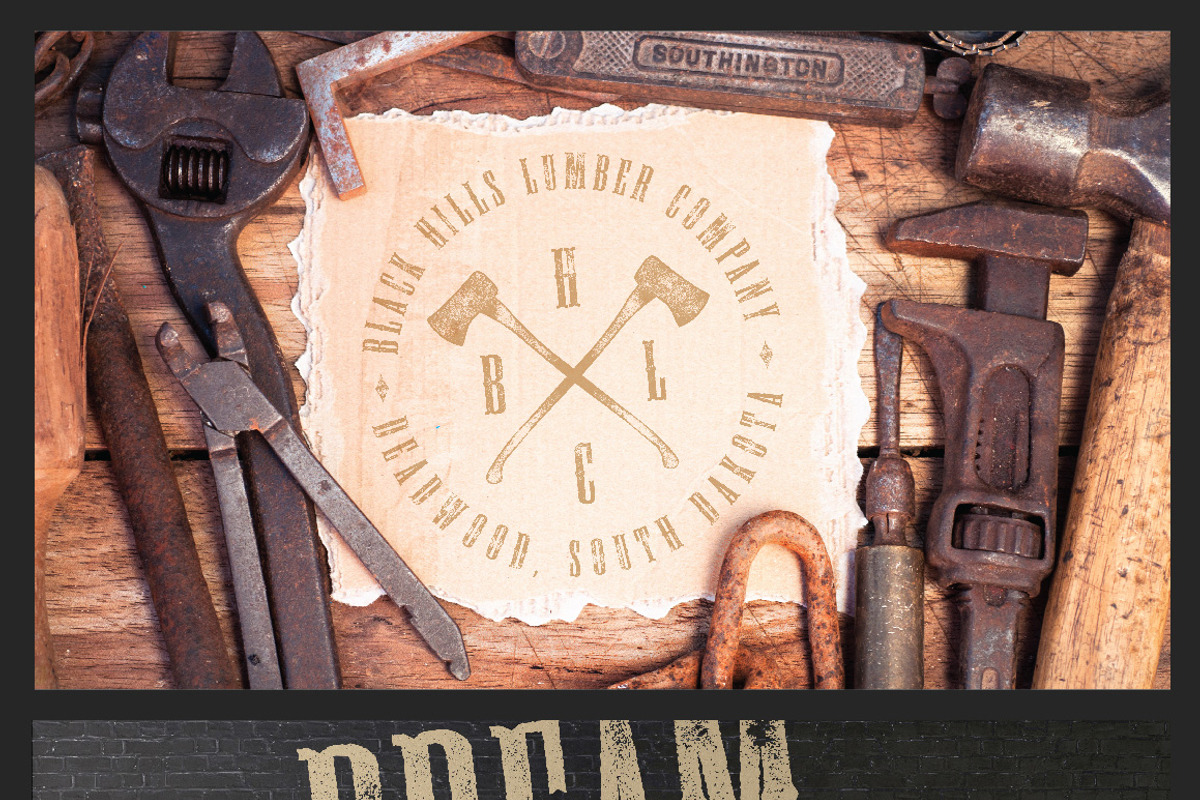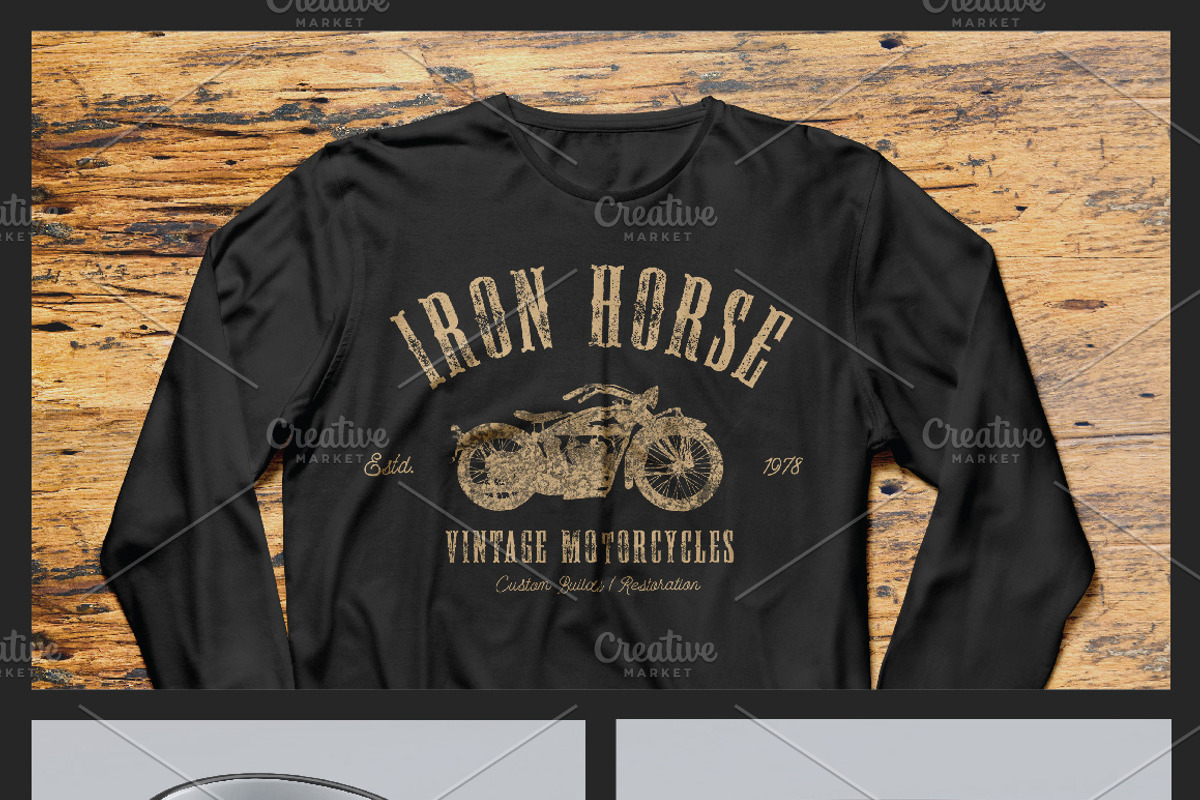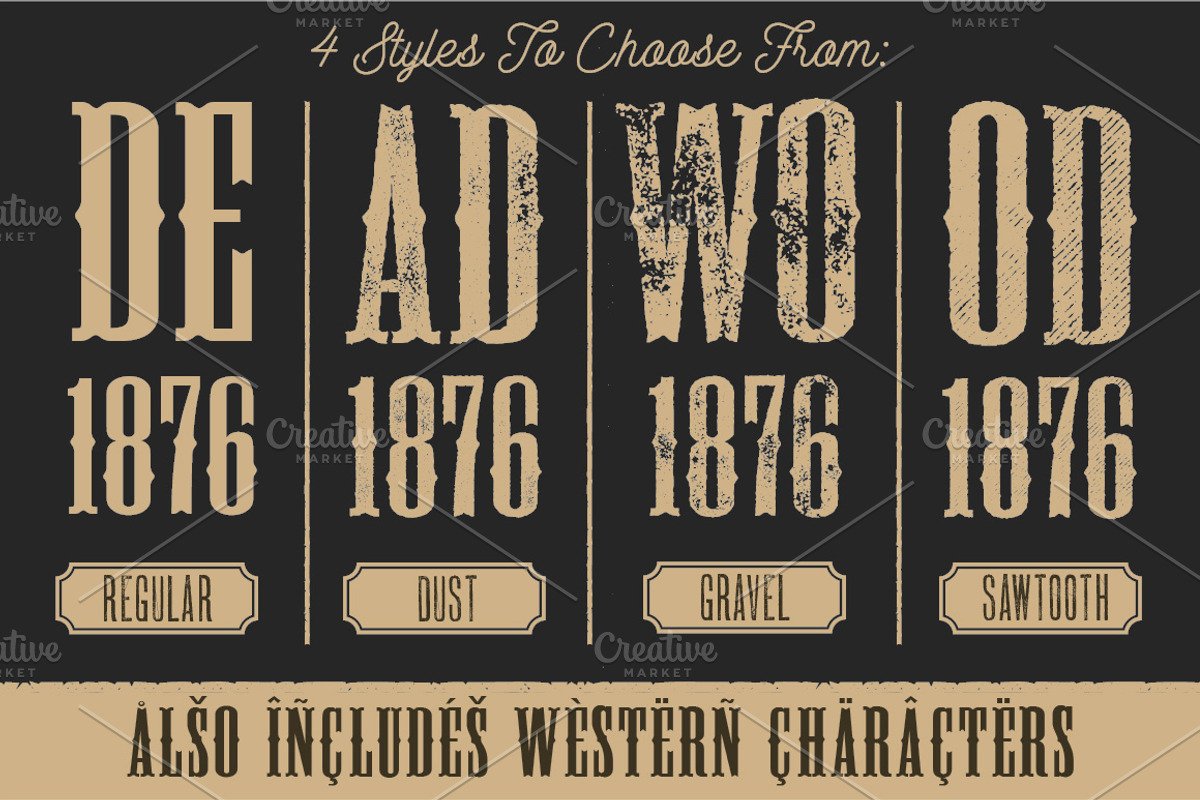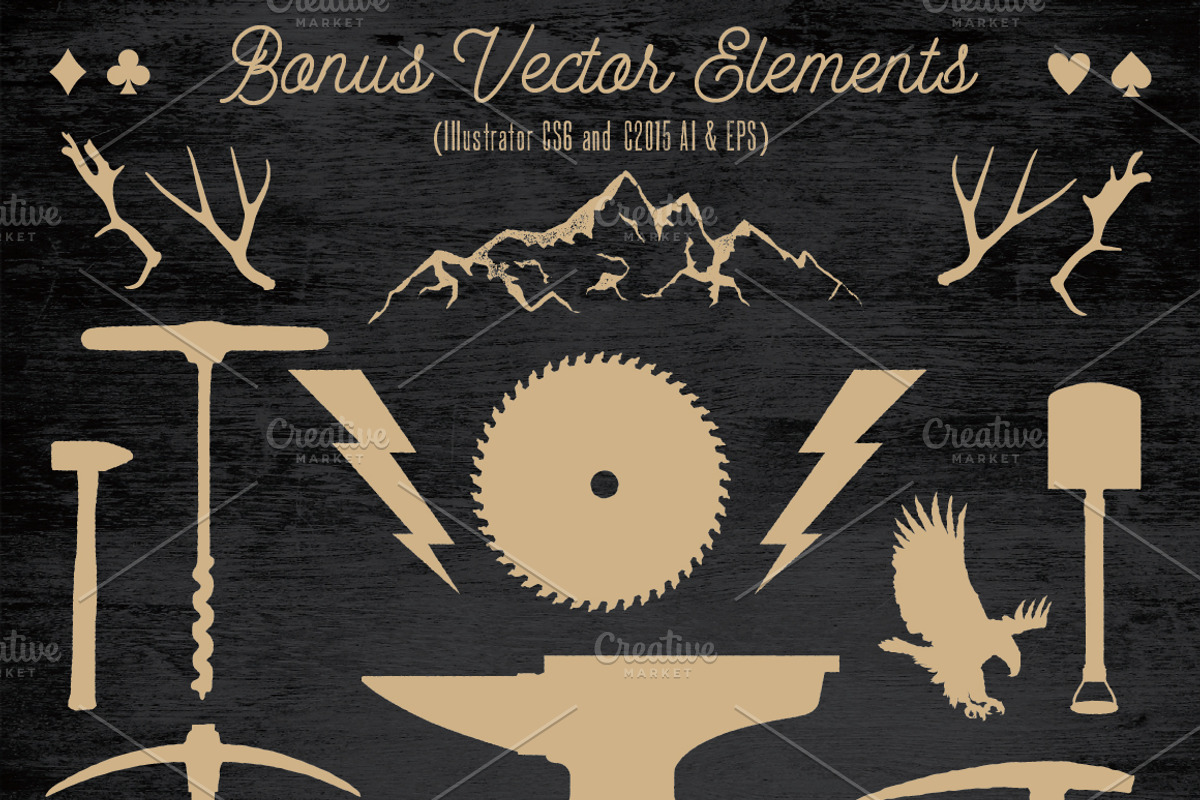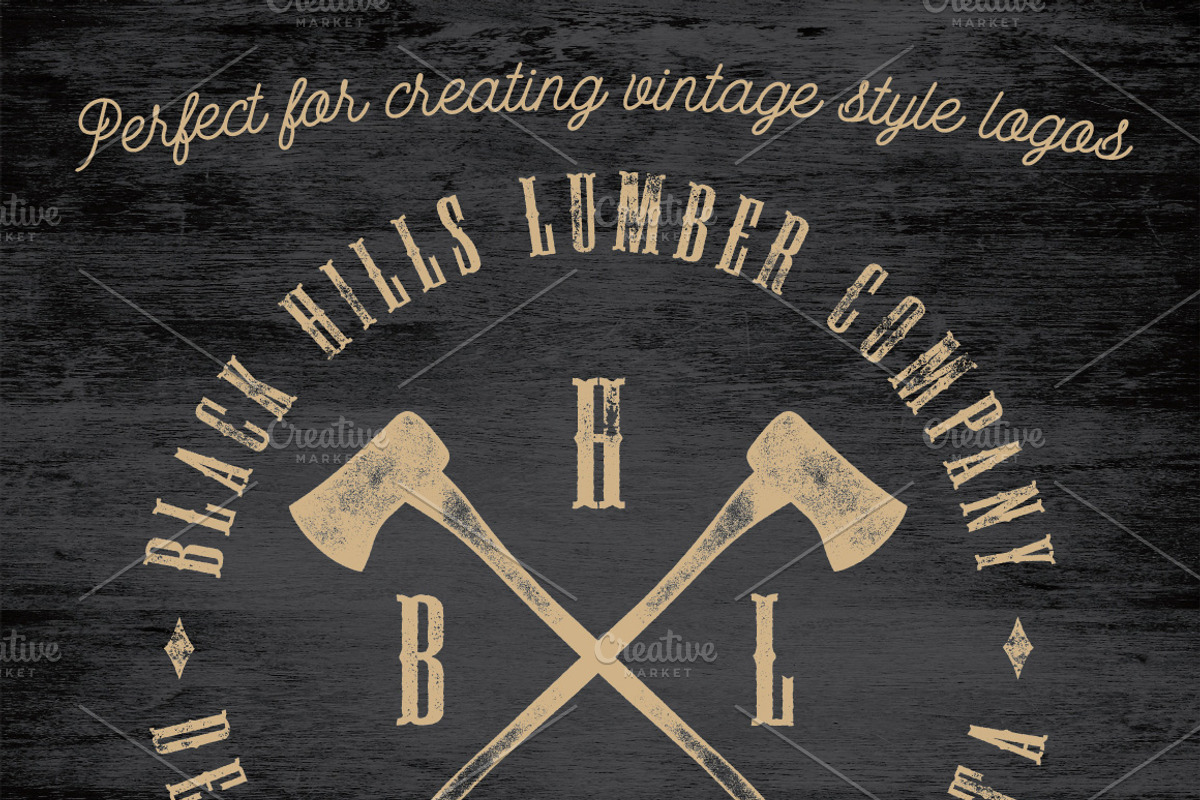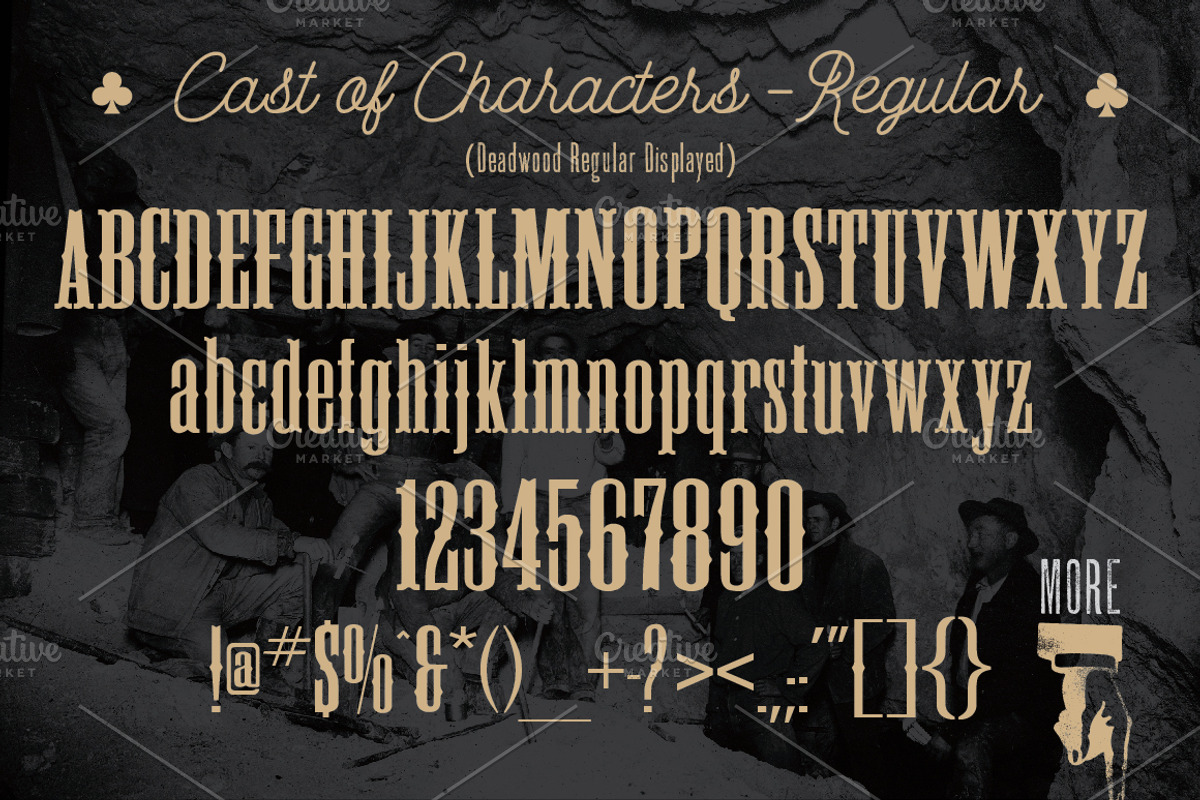
Deadwood Vintage Typeface w/Bonus
Deadwood Vintage Typeface w/Bonus by K Randall Wilcox is a font selected for branding, posters, packaging, typography.
- Each font has upper and lower case as well as numbers and special characters.
- Deadwood Dust Regular
- Deadwood Gravel Regular
- Deadwood Regular
- Deadwood Sawtooth Regular
Why Deadwood Vintage Typeface w/Bonus is worth a look
Deadwood Vintage Typeface w/Bonus by K Randall Wilcox fits naturally into Branding, posters, packaging, typography.